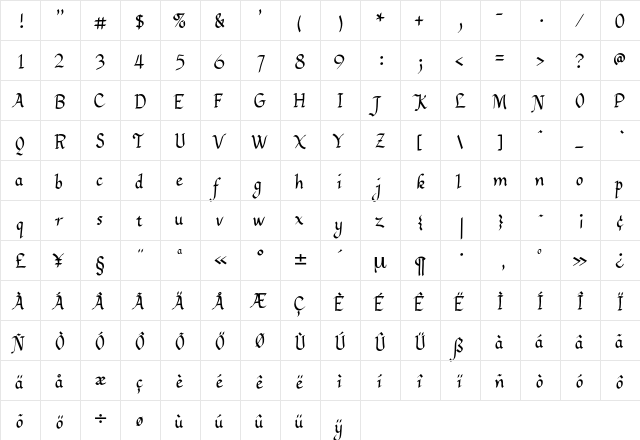
FaustusBold Regular
Design Context for FaustusBold Typeface
FaustusBold is a composed and adaptable typeface that performs quietly and consistently across a wide range of design contexts. The heavy weight commands attention and anchors typographic hierarchies.